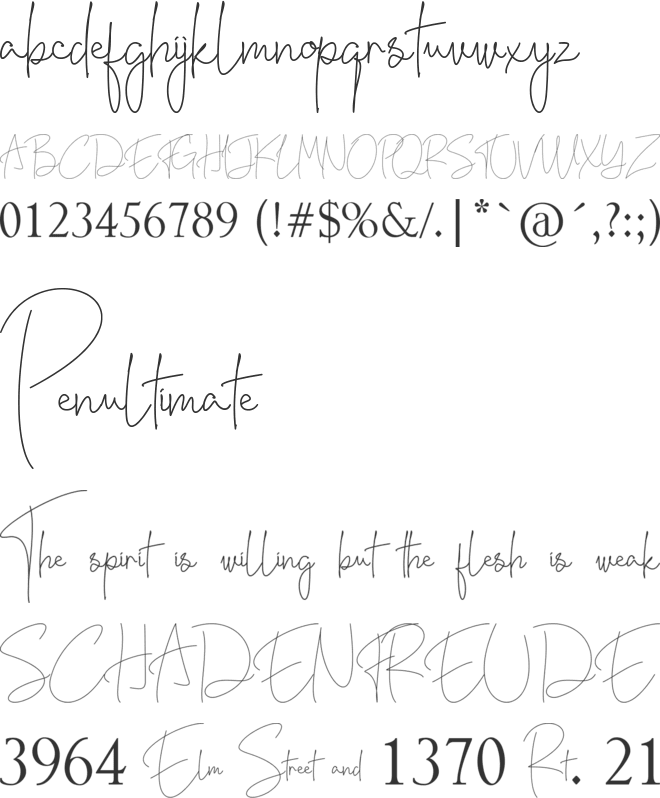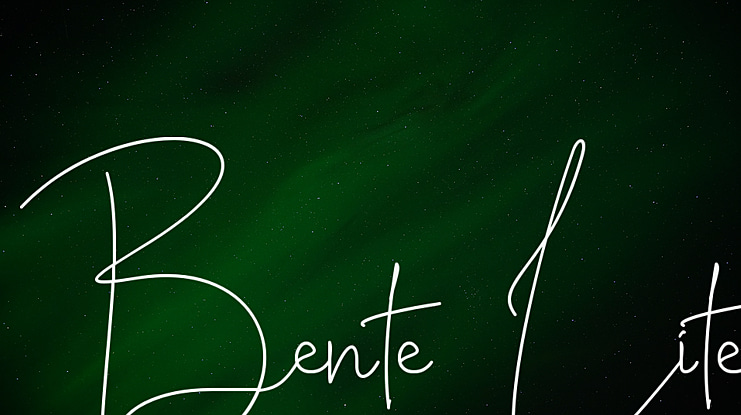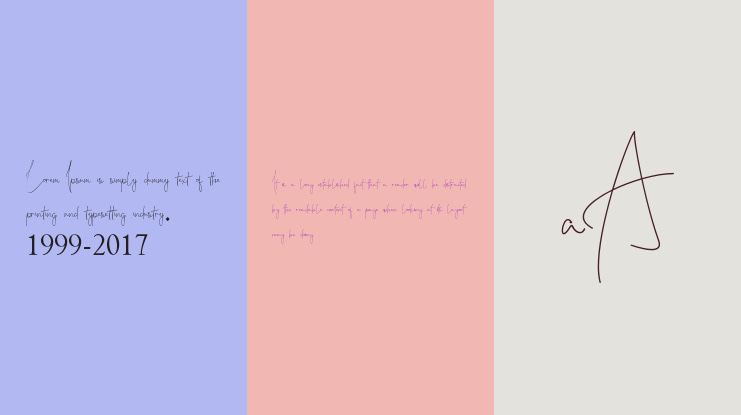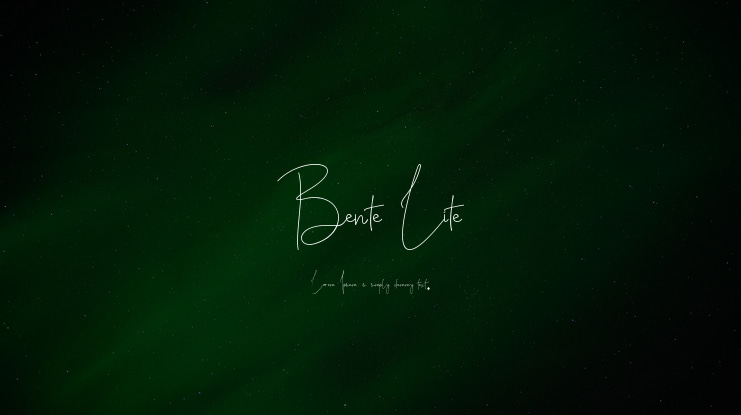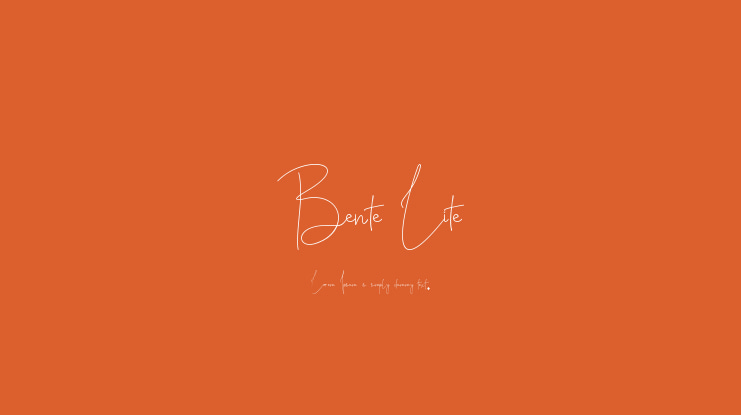
Bente Lite Font
Bente is a new modern & fresh script with a handwritten and script style that makes this font looks elegant, natural, stylish, and perfect for any awesome projects that need handwriting taste.
Bente would be perfect for photography, watermark, social media posts, advertisements, logos & branding, invitation, product designs, label, stationery, wedding designs, product packaging, special events, or anything that needs handwriting taste.